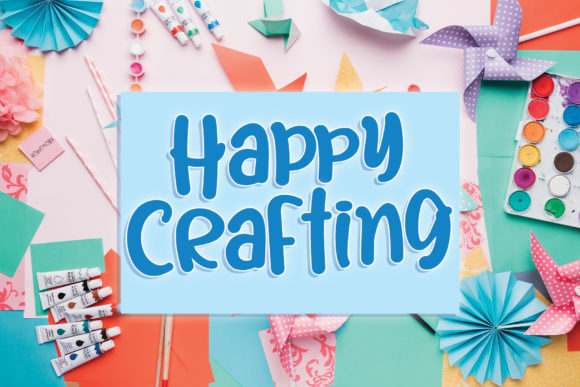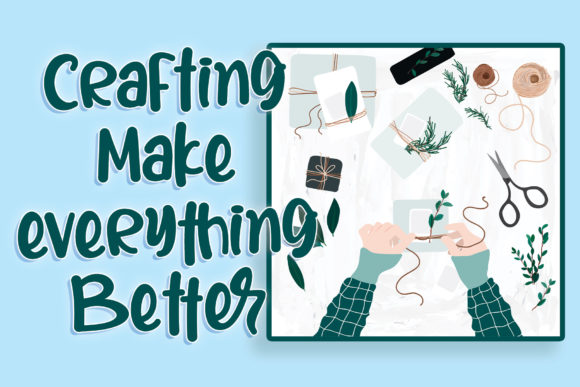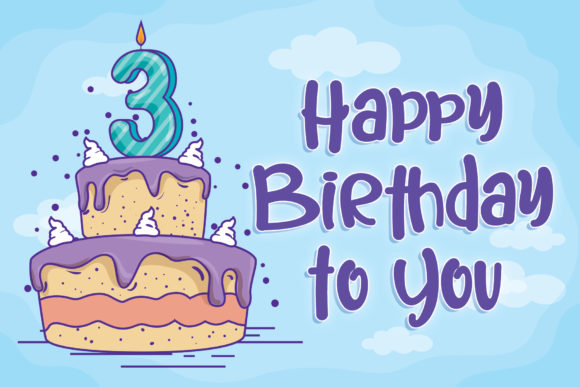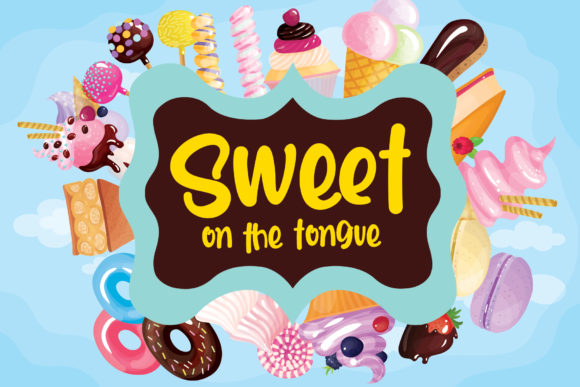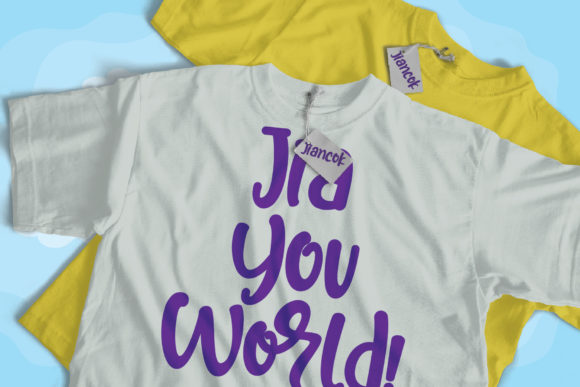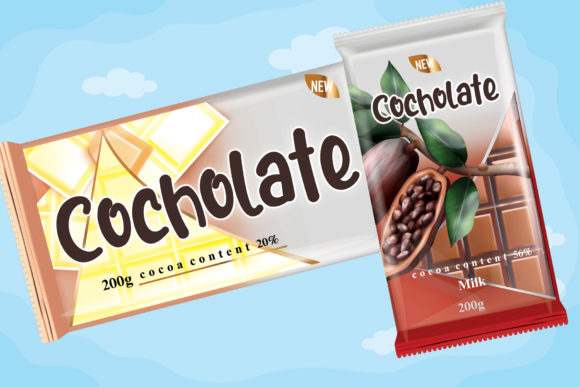
Introduction to Heal the World Font
Heal The World is a cute and sweet handwritten font with an incredibly friendly feel.
This font will turn any creative idea into a true piece of art .
Key Features of Heal the World Font